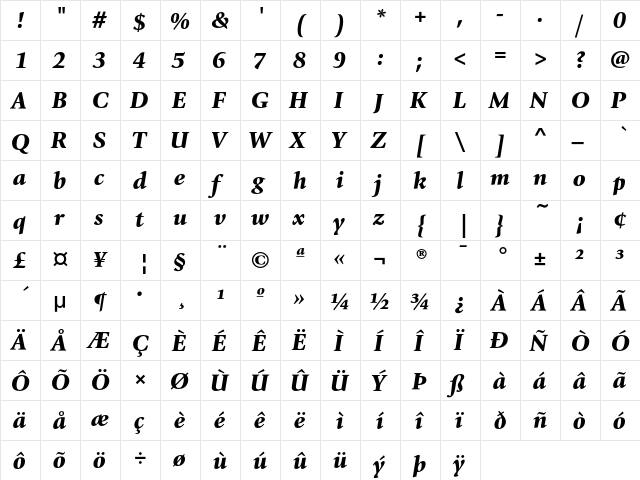
GiovanniEF BlackItalic Font Preview
GiovanniEF BlackItalic
Design Context for GiovanniEF Typeface
GiovanniEF offers clean, dependable letterforms without strong stylistic allegiance, making it a practical choice for designers who need flexibility. The dynamic lean of this cut emphasises speed and emphasis in any layout.
Pro Tip: Use GiovanniEF for emphasis, pull quotes, and subheadings where its slanted energy can add rhythm to the layout.